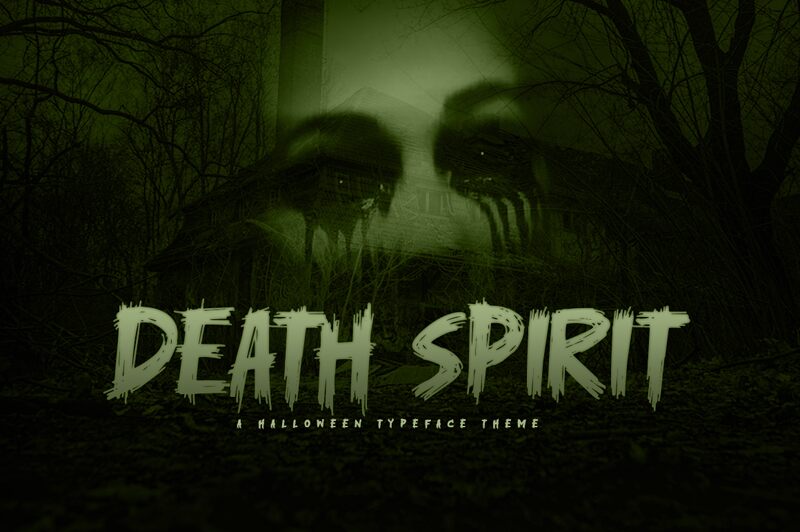
Death Spirit
Death Spirit is a daring and impactful display font designed by Khurasan. With its bold weight, this scary and trash-inspired typeface will send shivers down your spine. Perfect for horror movie posters, Halloween party invitations, or heavy metal album covers, Death Spirit demands attention and sets the mood for all things dark and eerie. Its unique design will add a touch of macabre to any project, making it suitable for haunted house flyers, gothic-themed websites, or tattoo designs that exude an edgy vibe. Unleash the power of Death Spirit and embrace the darkness within!